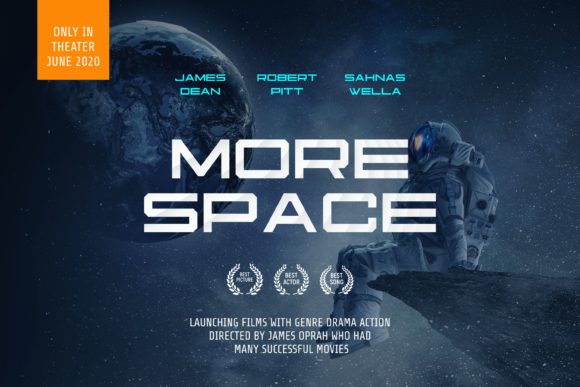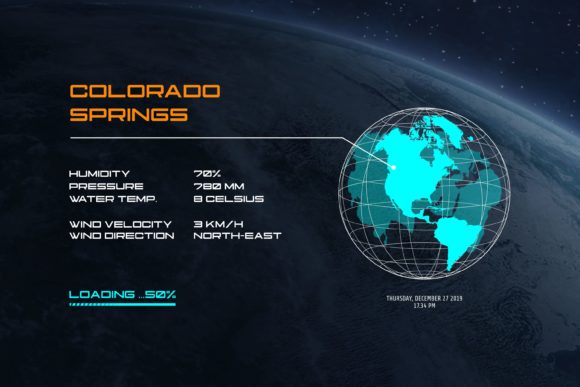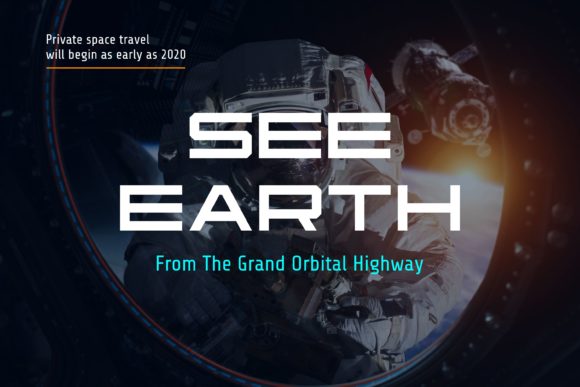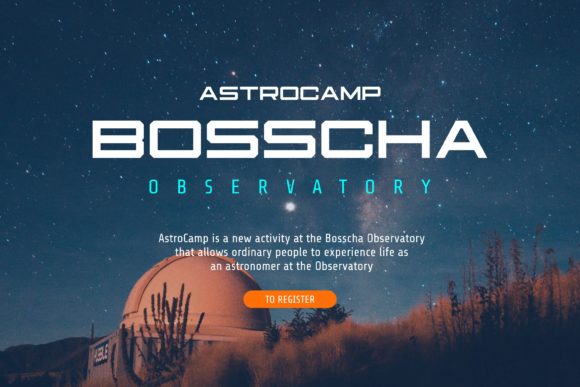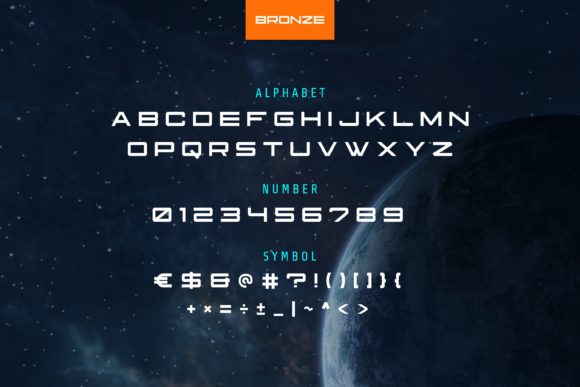
The Designer’s Delight: Unveiling the Bronze Font
Have you ever been in the middle of a design project, and suddenly, the perfect font seems elusive? I recall a particularly frustrating experience while working on a branding project for a tech startup. The client wanted a font that was modern, futuristic, and yet, approachable. After hours of scouring through font libraries, I stumbled upon the Bronze font. It was love at first sight! ✨
First Impressions: A Modern Display Font
Bronze is a smart and modern display font with a futuristic feel. Its sleek lines and geometric shapes make it perfect for logos, branding, packaging, posters, invitations, social media, and a wide range of advertising projects! The font’s versatility and unique character make it an excellent addition to any designer’s toolkit.
What I Love About Bronze
• ✅ Unique Character: Bronze has a distinct personality that sets it apart from other modern fonts.
• ✨ Highly Versatile: It can be used for a wide range of projects, from logos and branding to posters and social media graphics.
• 💻 Excellent for Digital Use: The font is optimized for digital use, making it perfect for websites, social media, and online advertising.
• 🎨 Great for Creative Freedom: Bronze offers a range of OpenType features, glyphs, and stylistic alternates, giving designers the creative freedom to experiment and push the boundaries of their designs.
While Bronze is an excellent font, there are a few minor quirks to be aware of: 🤔
• ⚠️ Limited Use in Body Text: Due to its futuristic and modern feel, Bronze may not be the best choice for body text. It’s better suited for headlines, titles, and short paragraphs.
• ⚠️ Some Characters May Require Adjustment: Certain characters, like the lowercase “k” and “q”, may require manual adjustment to achieve optimal spacing and alignment.
The Bronze font was designed by a team of creatives who aimed to create a modern, futuristic font that would meet the demands of the digital age. Inspired by the sleek lines and geometric shapes of modern architecture and technology, Bronze was born. The design team sought to create a font that was not only visually striking but also highly versatile and functional.
Q: What type of projects is Bronze best suited for?
A: Bronze is perfect for logos, branding, packaging, posters, invitations, social media, and a wide range of advertising projects.
Q: Can I use Bronze for body text?
A: While Bronze can be used for short paragraphs, it’s not recommended for extensive body text due to its futuristic and modern feel.
Q: Does Bronze support OpenType features?
A: Yes, Bronze offers a range of OpenType features, glyphs, and stylistic alternates, making it an excellent choice for designers who want to experiment and push the boundaries of their designs.